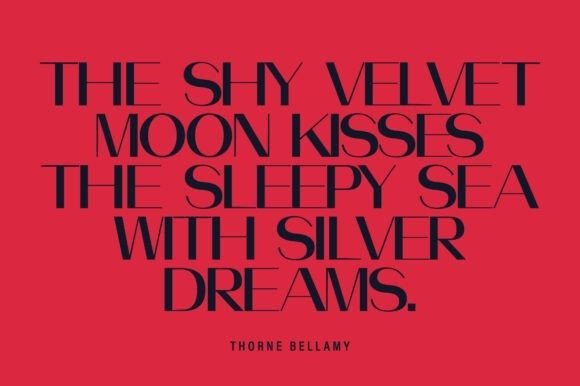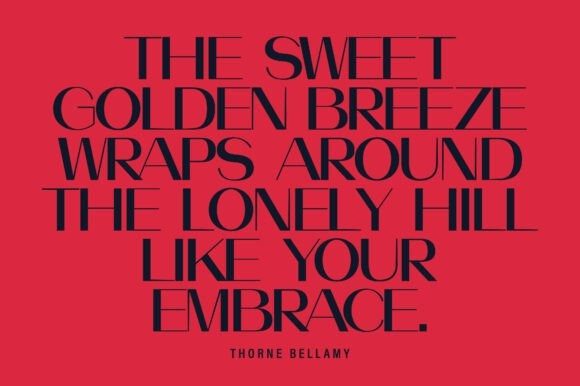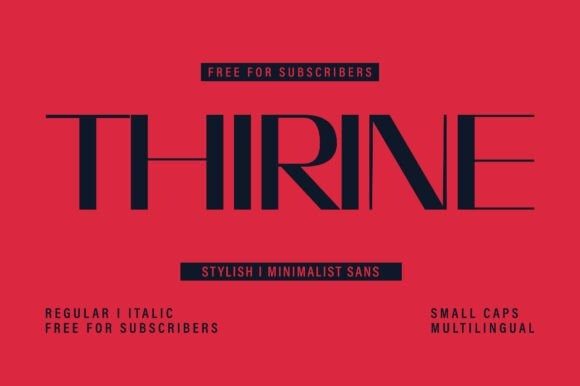
Thirine Font
Thirine Font this minimalist sans-serif typeface is designed for clarity and style. With tall proportions and subtle elegance, it’s ideal for branding, editorial layouts, fashion packaging, and digital interfaces. Featuring Regular & Italic styles, small caps, and multilingual support, it adapts beautifully across global projects. Free for subscribers, this font is a must-have for designers seeking clean sophistication and timeless appeal.